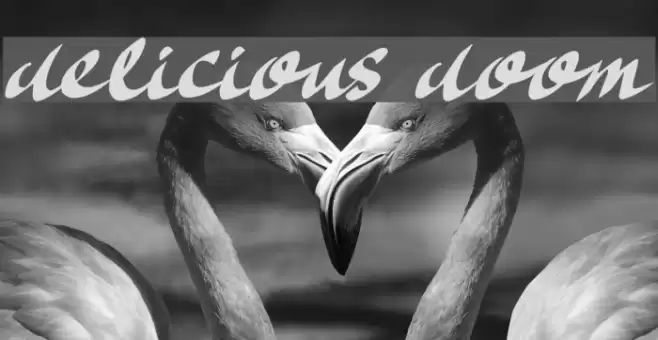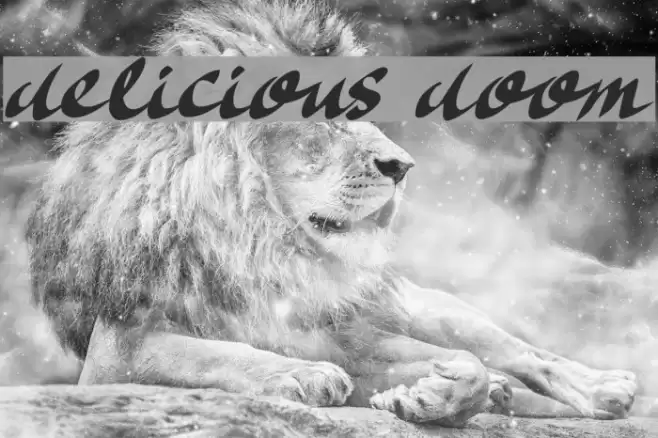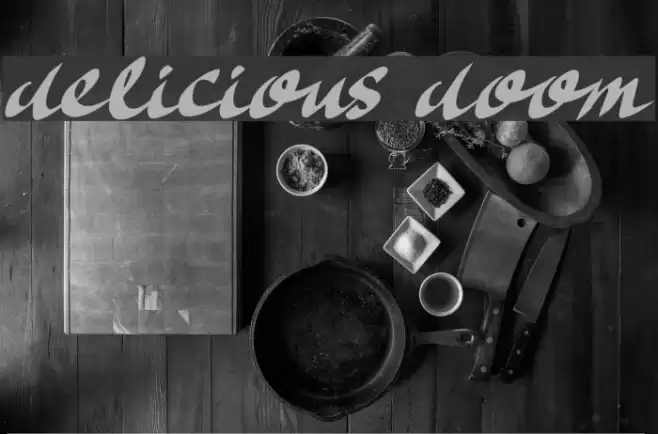
Delicious Doom Font
Delicious Doom Description
This font features a bold, expressive script style with a dynamic and energetic flow. The characters are interconnected, creating a sense of movement and fluidity. The strokes are thick and bold, giving the font a strong presence. The overall design is reminiscent of calligraphy, with sharp angles and dramatic curves that add a sense of drama and flair. The uppercase and lowercase letters maintain a consistent style, while the numerals and special characters are designed to match the font's bold and artistic aesthetic.
A bold, expressive script font with dynamic, interconnected characters from Uncategorized fonts.
- Proposed Projects: Ideal for branding projects, logo design, posters, and invitations where a dramatic and artistic touch is desired.
- Character Spacing: Tight